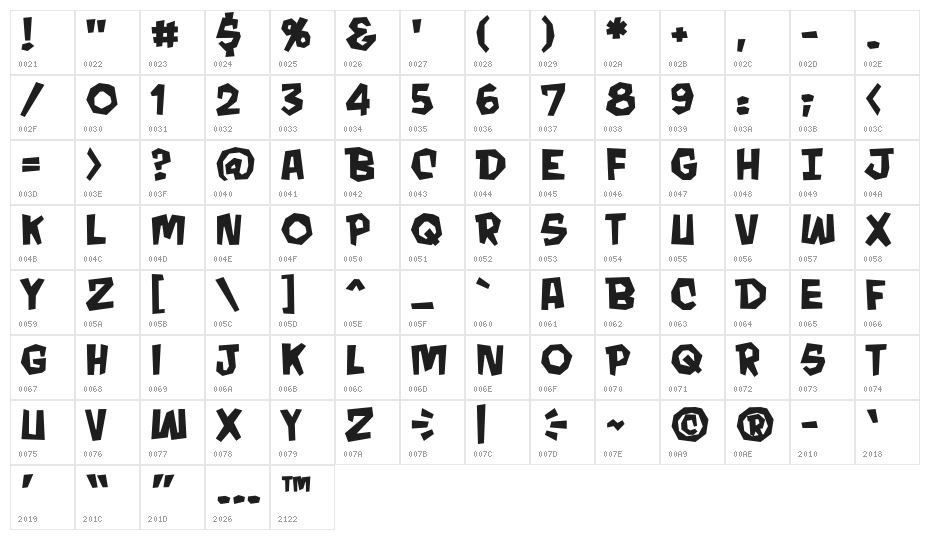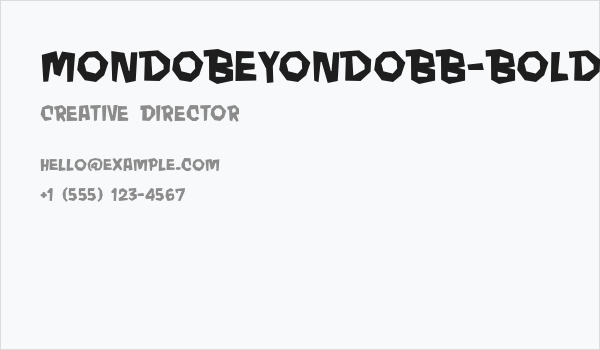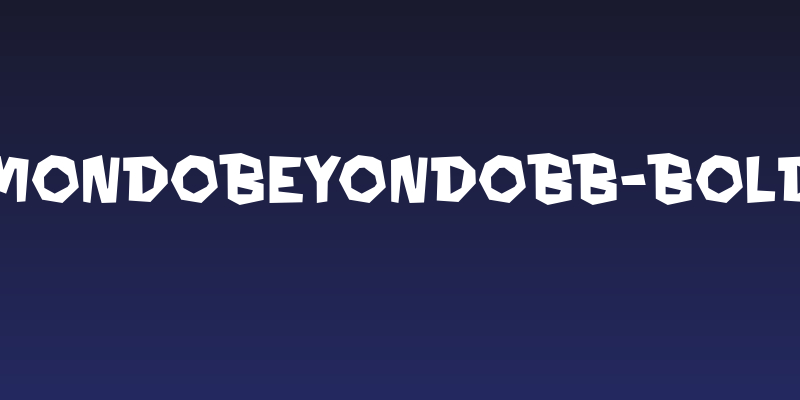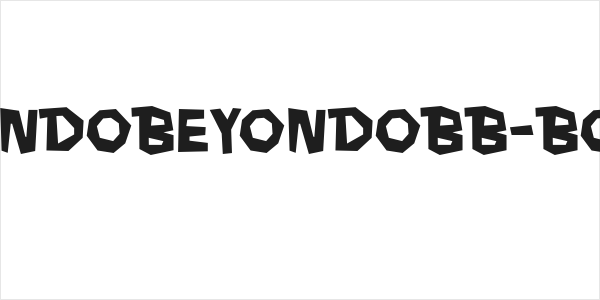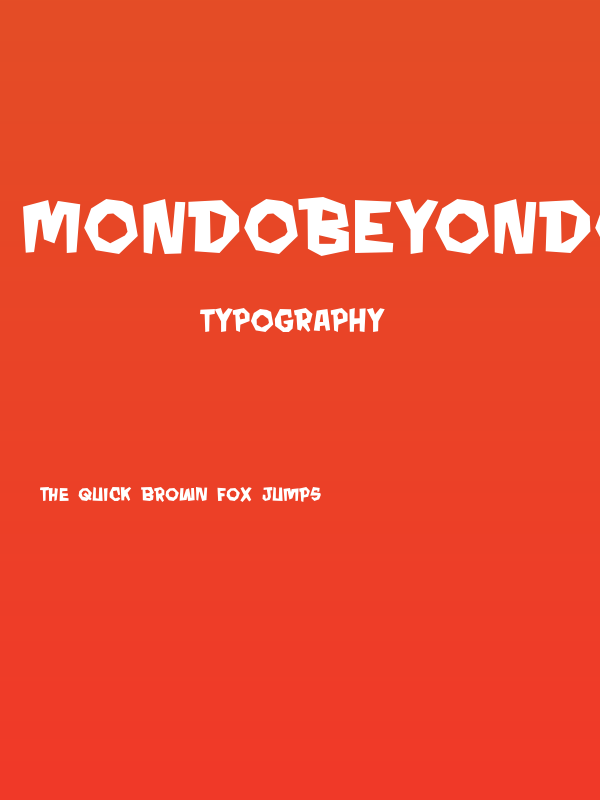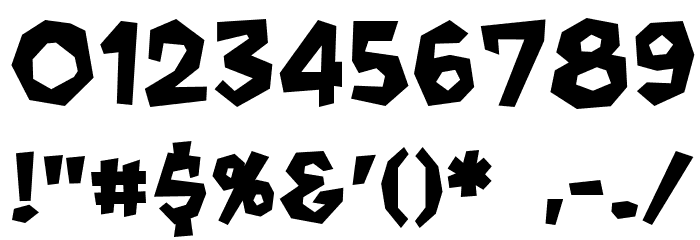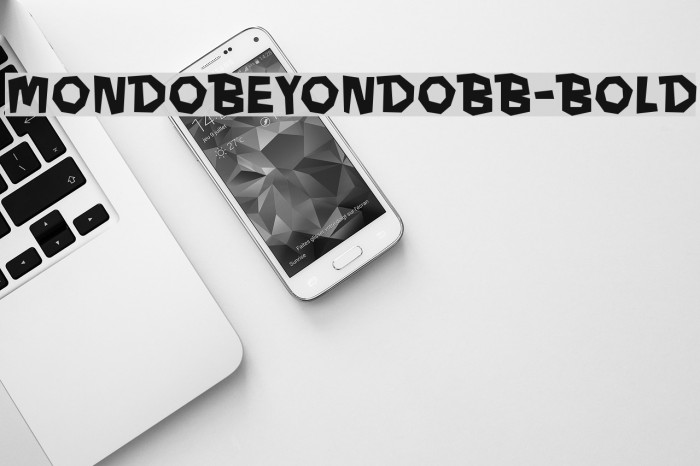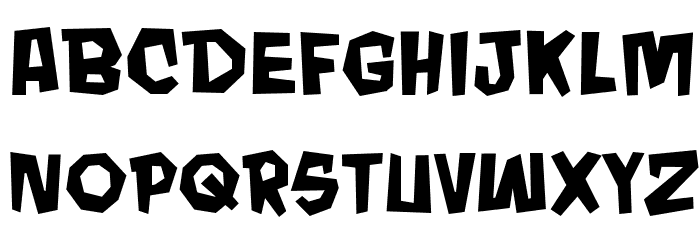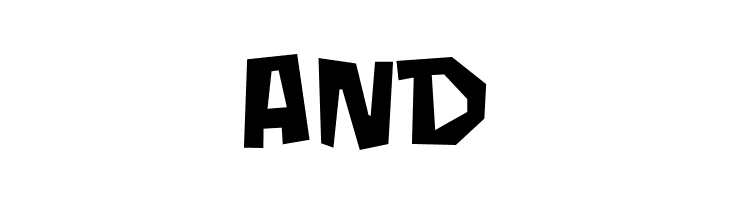
MondoBeyondoBB-Bold Font
MondoBeyondoBB-Bold Description
This bold, decorative font features a playful and dynamic style with irregular, angular shapes that give it a unique and eye-catching appearance. The characters are heavily stylized with thick strokes and sharp edges, creating a sense of movement and energy. The uppercase and lowercase letters maintain a consistent design, while the numbers and special characters complement the overall aesthetic. This font's boldness and distinctive look make it ideal for projects that require a strong visual impact.
| Proposed Projects | Perfect for posters, album covers, video game titles, and any project needing a bold, energetic typeface. |